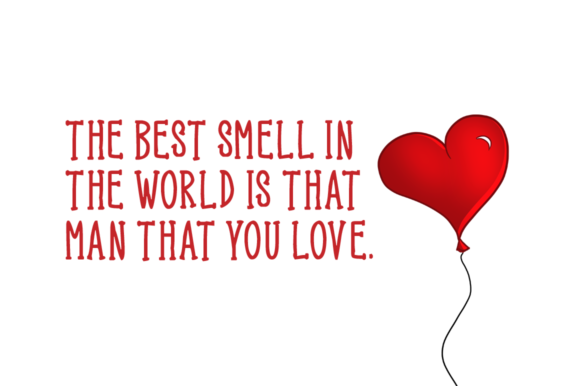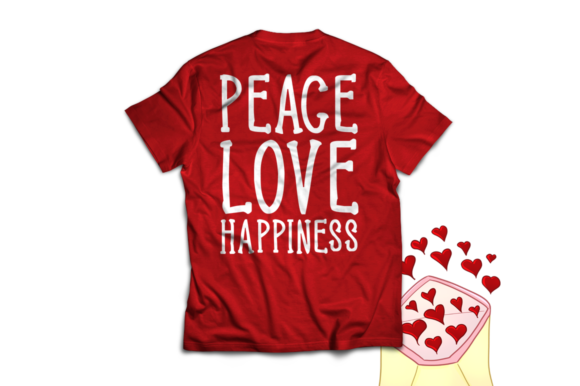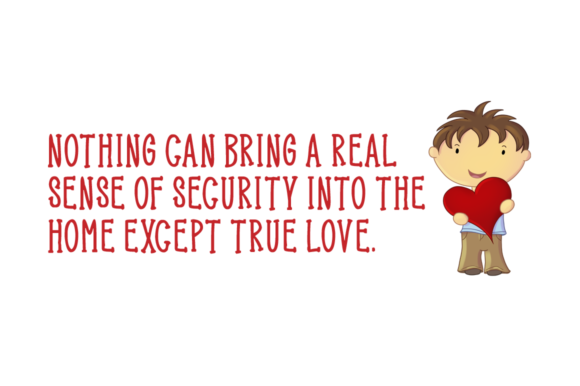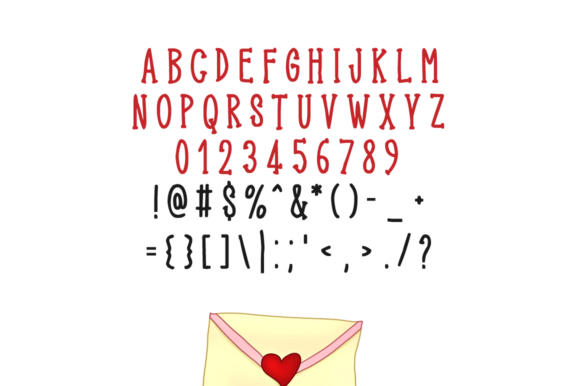
Introduction to Exquisite Valentine Font
Exquisite Valentine is a brand new display font with exciting character.
Fall in love with its playful charm .
Key Features of Exquisite Valentine Font